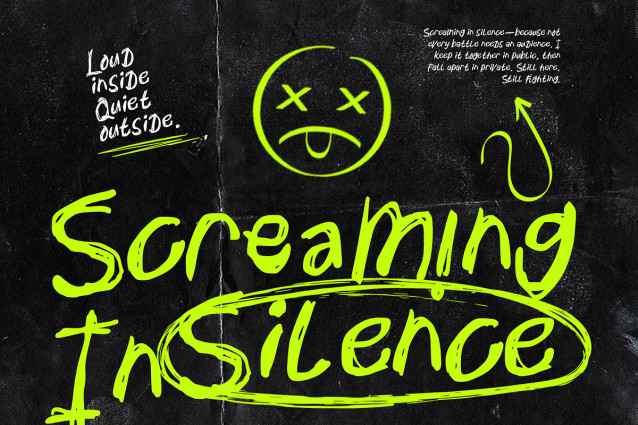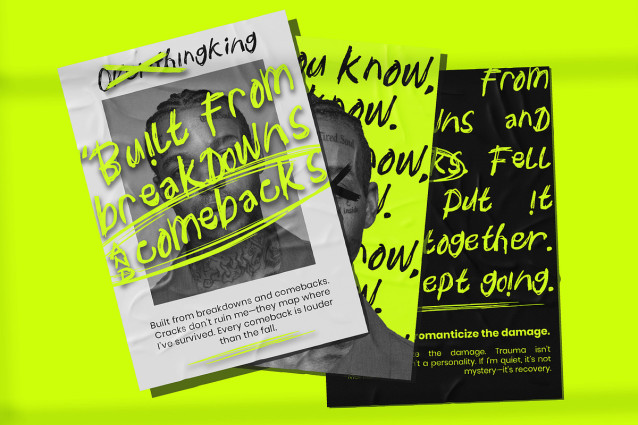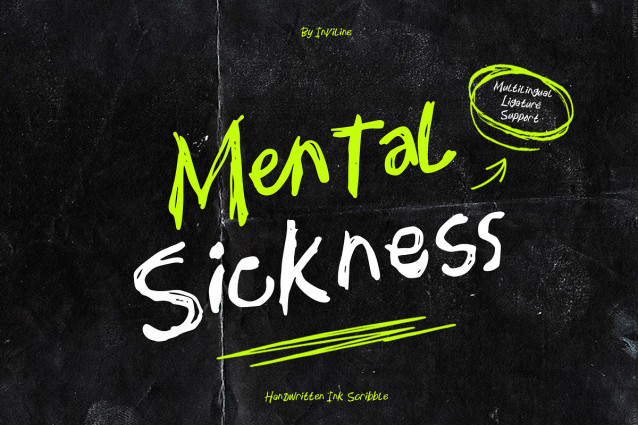
Mental Sickness Script Font
Mental Sickness Script Font is a raw handwritten ink scribble typeface that feels loud, unfiltered, and emotionally charged. Inspired by urban textures, protest notes, and personal journal scrawls, this font embraces imperfection as its strongest character. Every stroke is sharp, restless, and expressive creating an intense visual rhythm that feels honest and unapologetic. The rough brush texture and uneven flow give it a human, almost rebellious presence, perfect for designs that need to feel real rather than polished.
Built for streetwear graphics, music posters, editorial layouts, awareness campaigns, social media statements, and bold branding, Mental Sickness carries attitude in every letter. With natural ligatures, alternative characters, and strong multilingual support, it moves effortlessly between chaos and clarity. This is not a font about perfection it’s about emotion, expression, and making your message impossible to ignore.